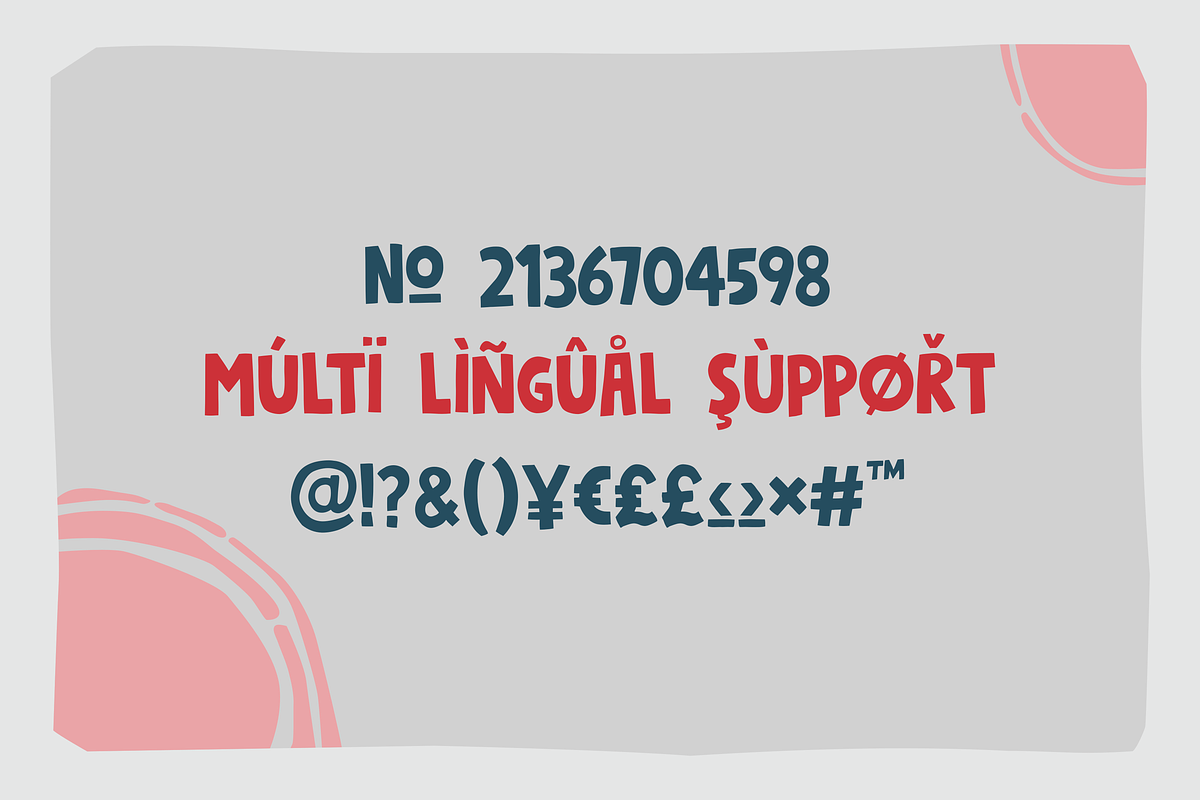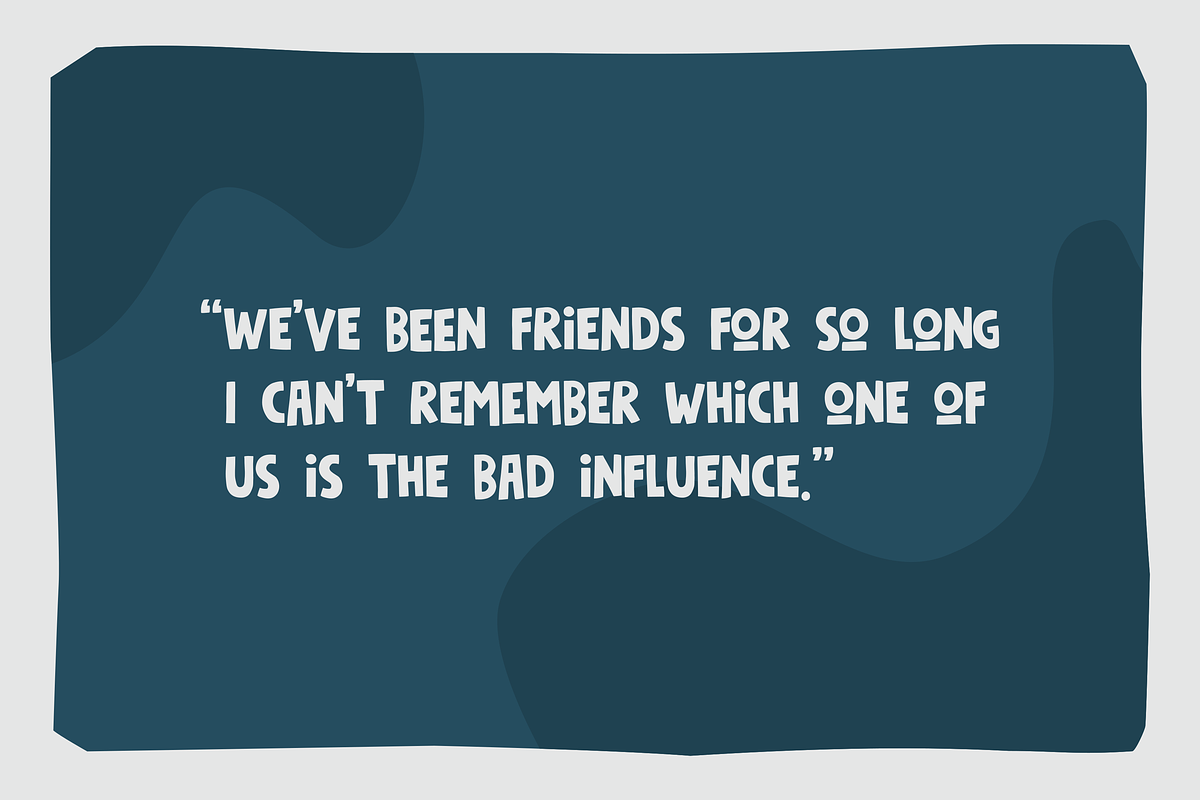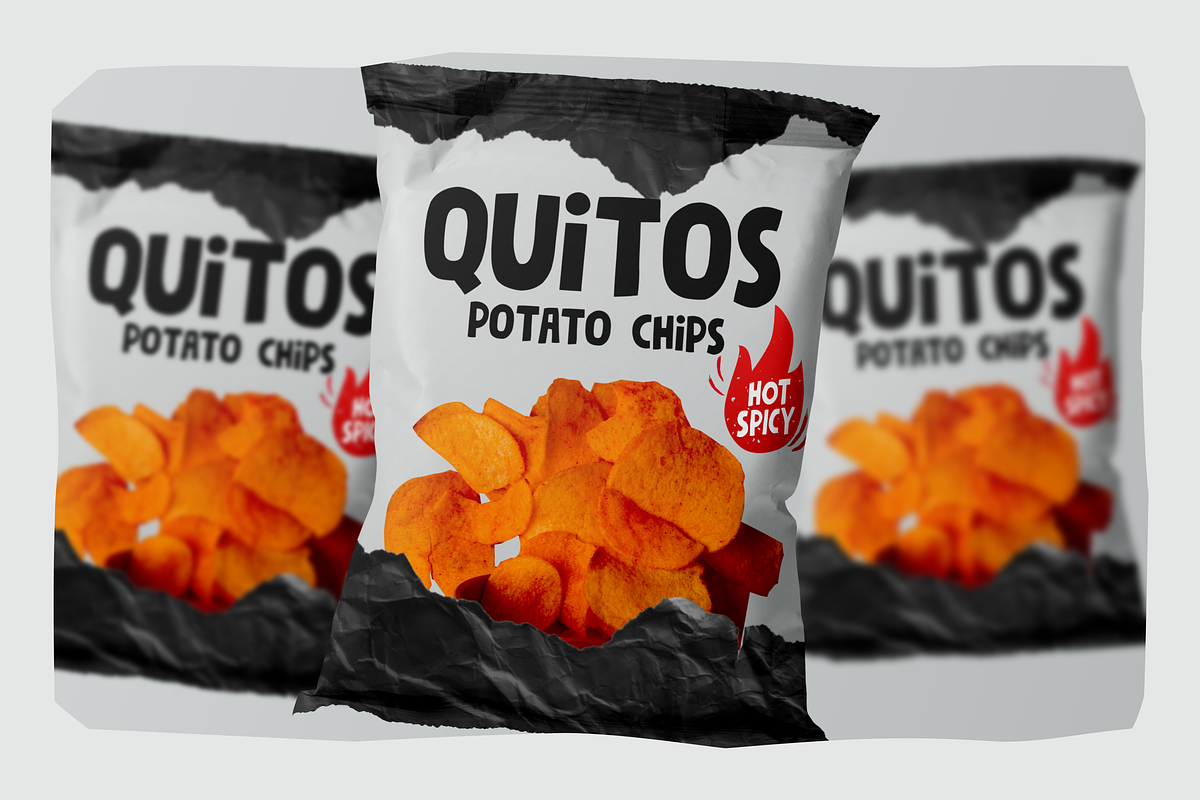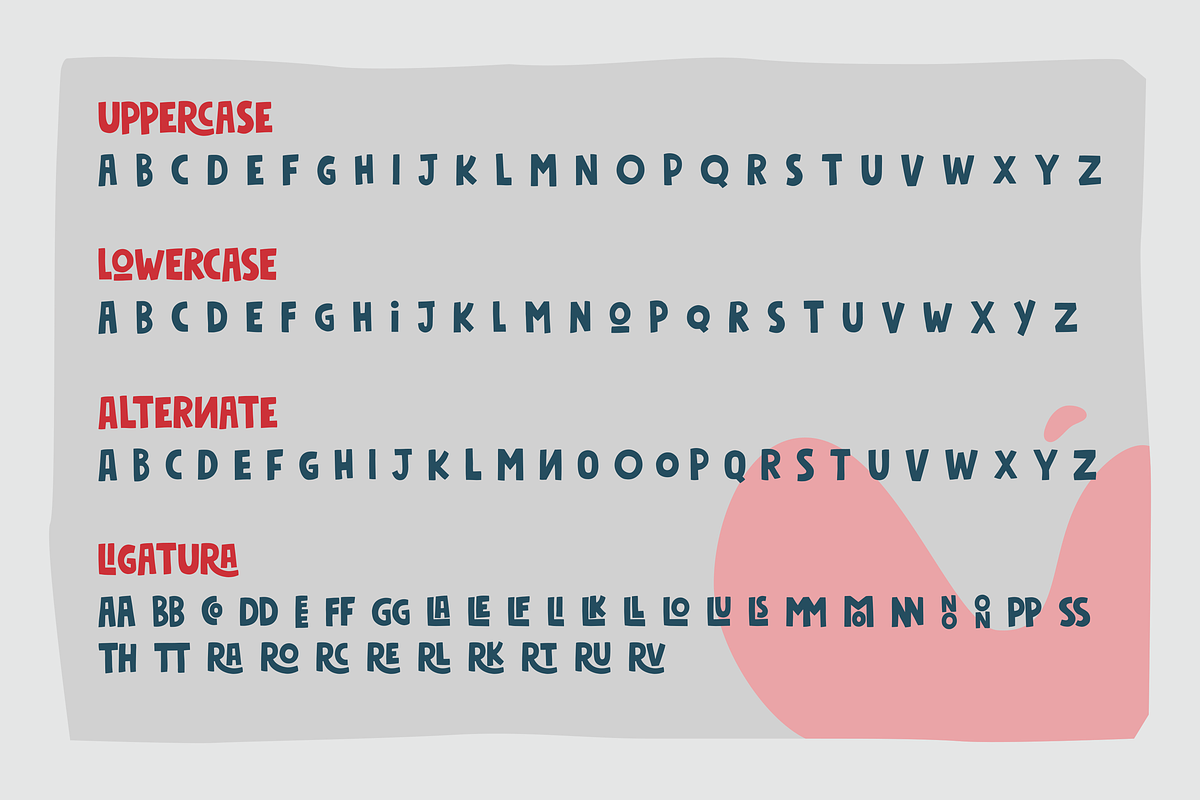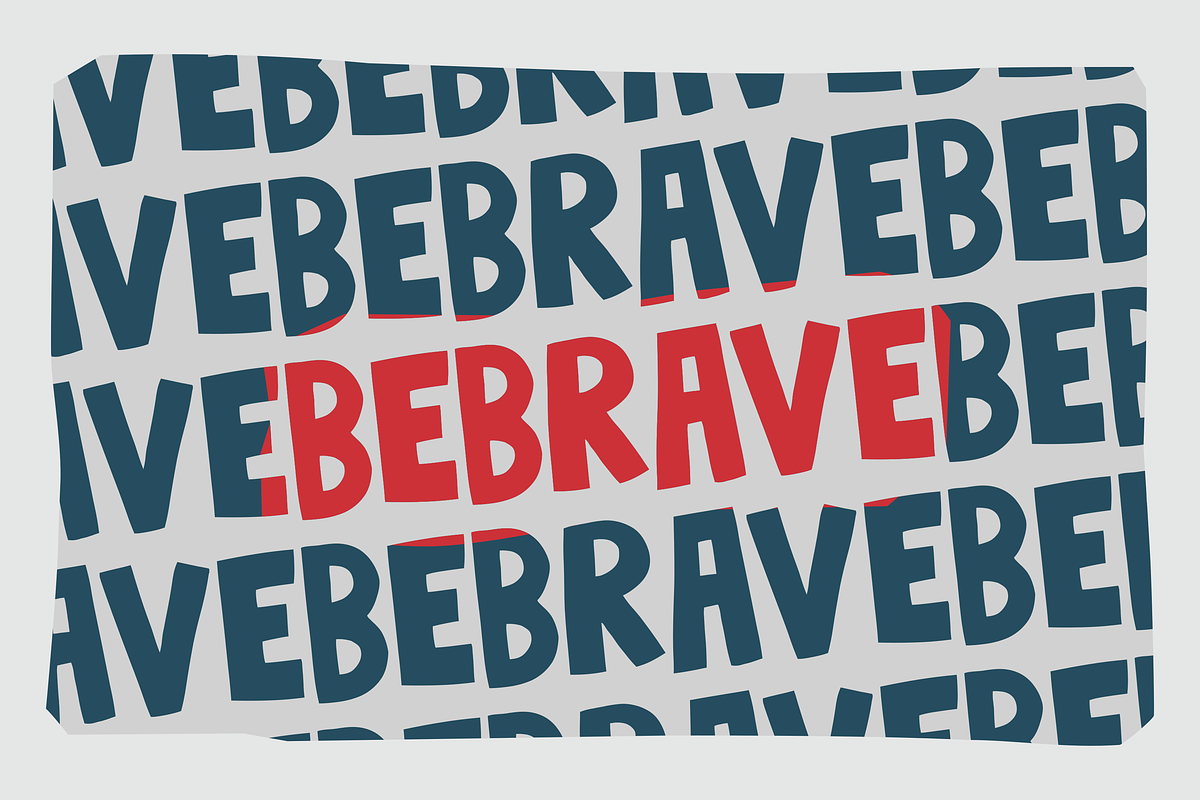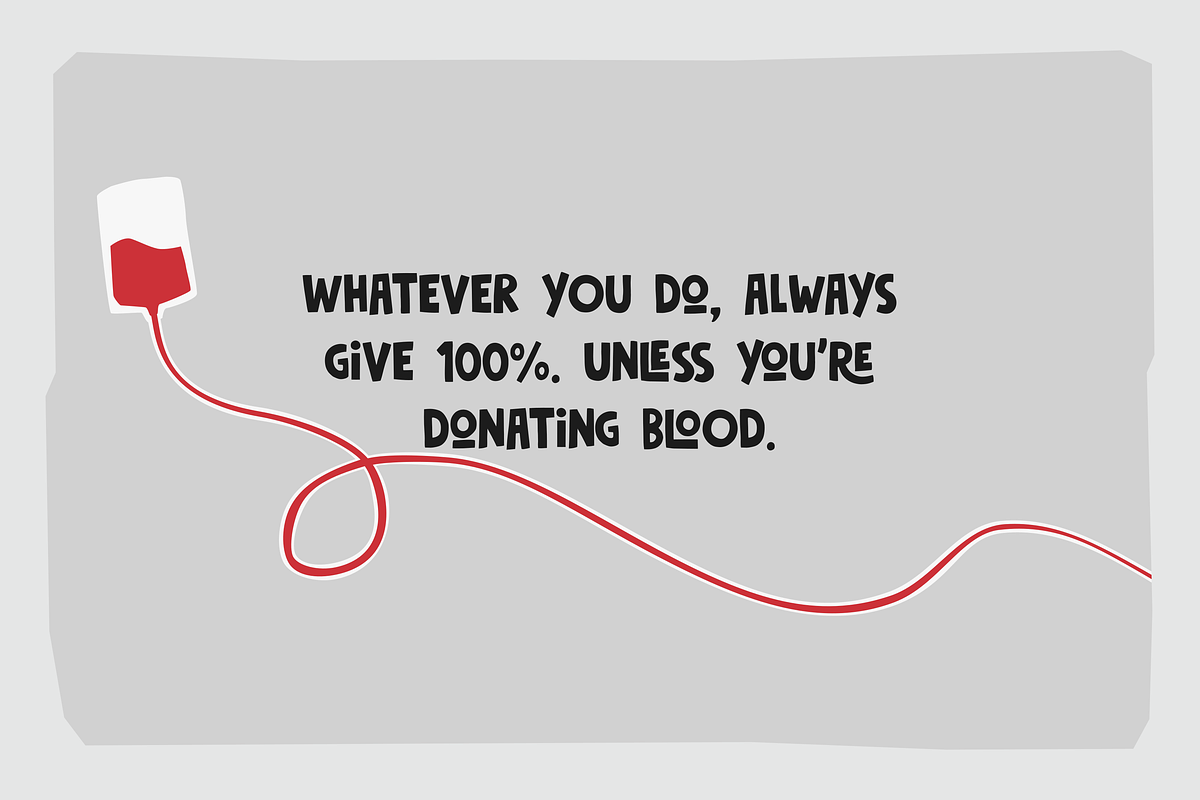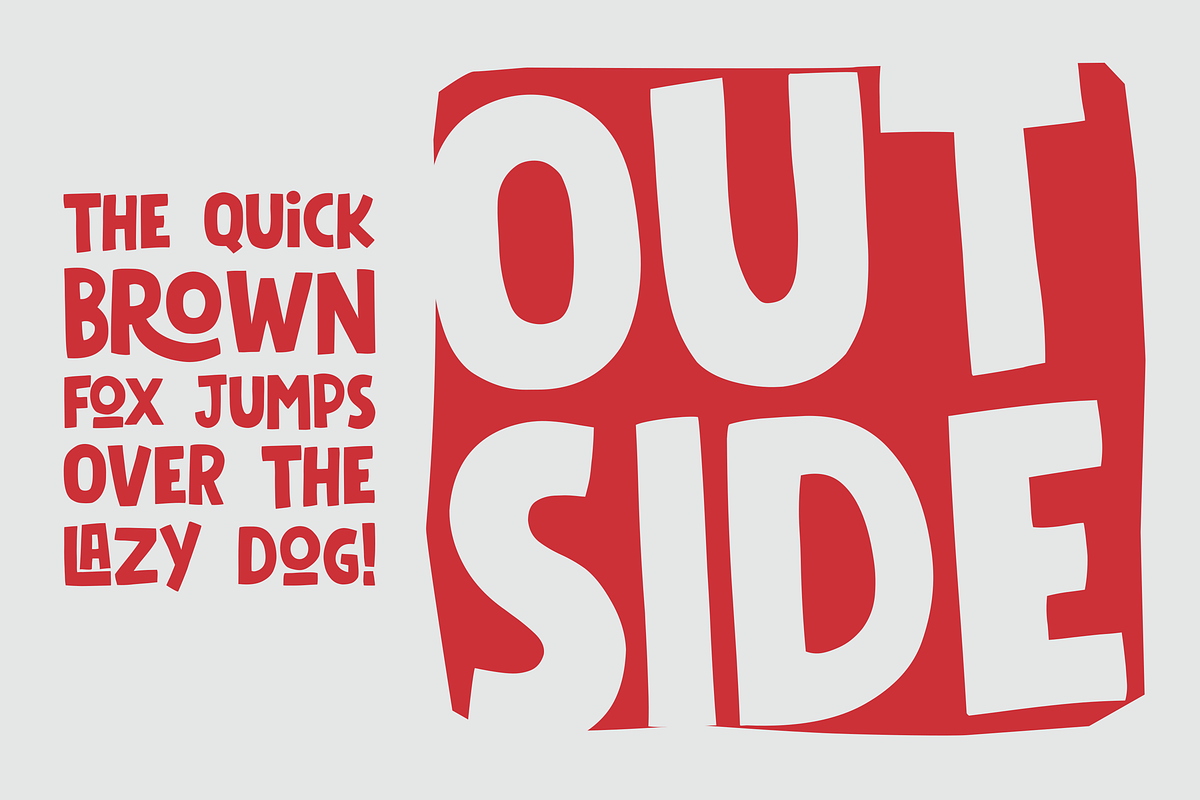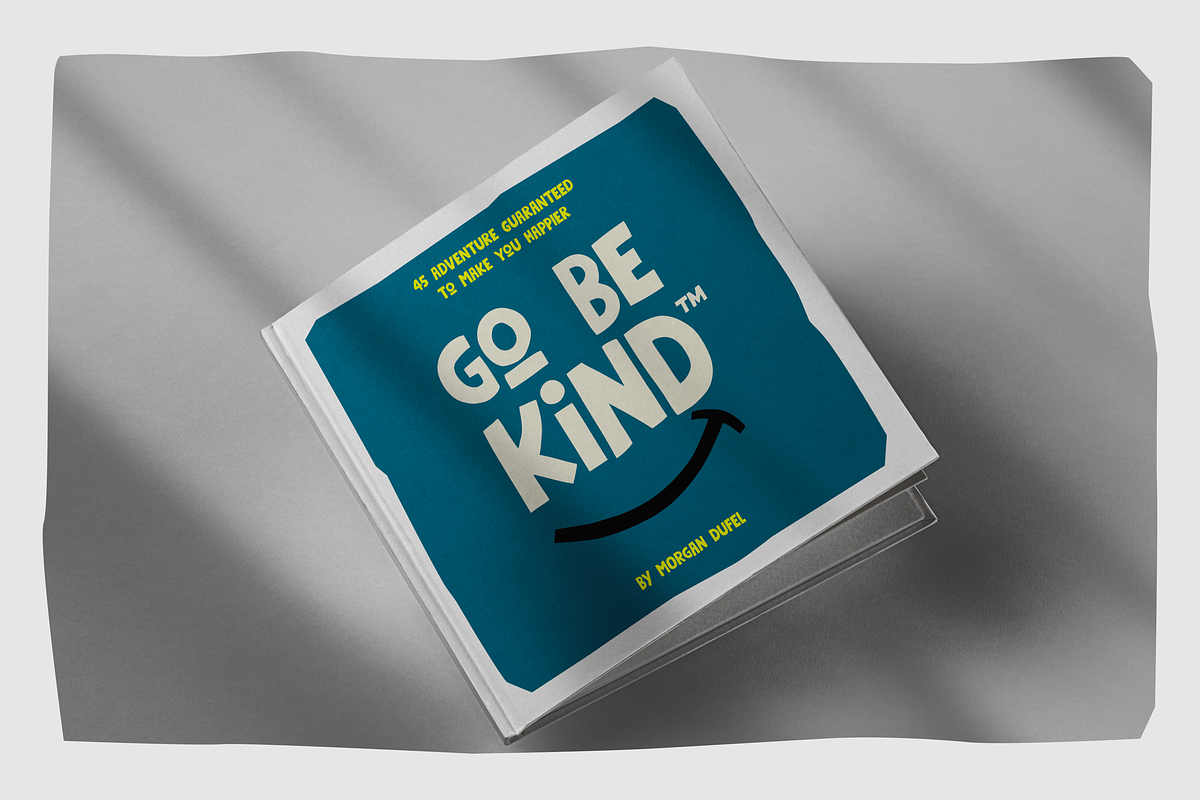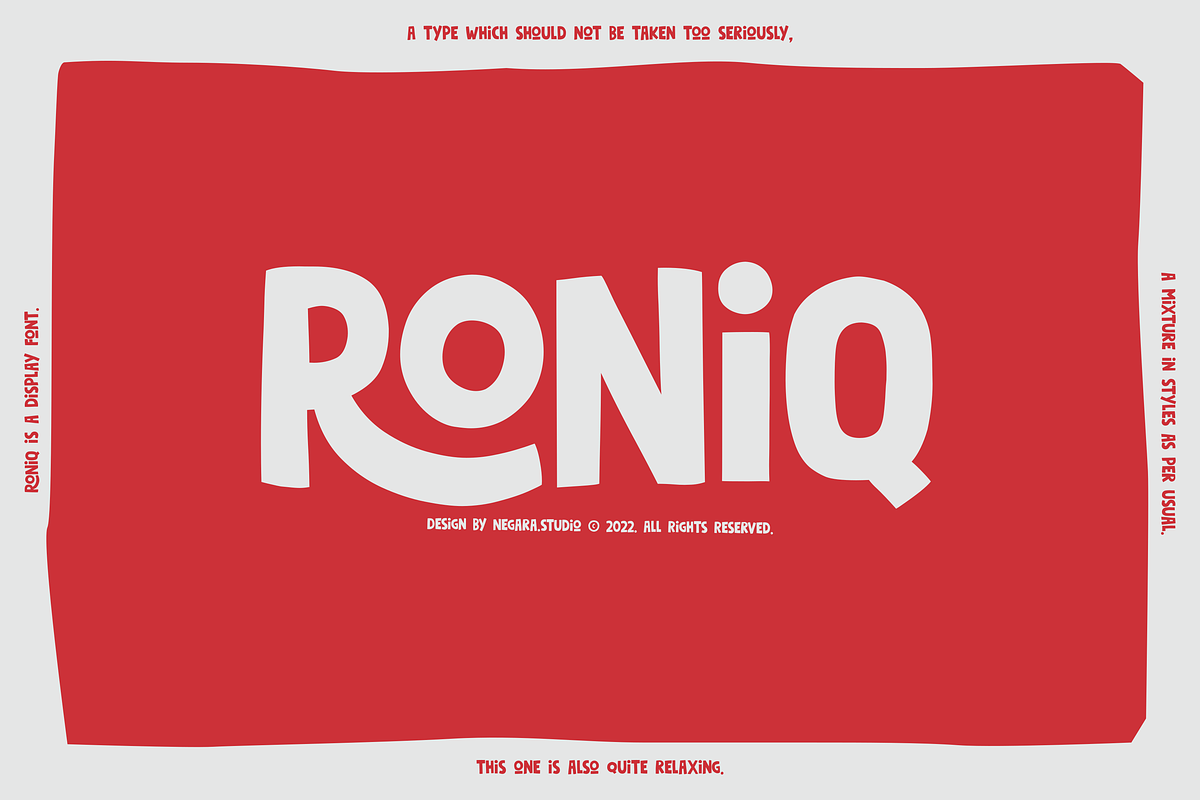
Roniq
RONiQ is a display font. A type which should not be taken too seriously, a mixture in styles as per usual. this one is also quite juicy. Ready to be used in fun projects. Supports some languages, a lil bit multingual.
Multilanguage, Punctuation, Alternates and Ligatures